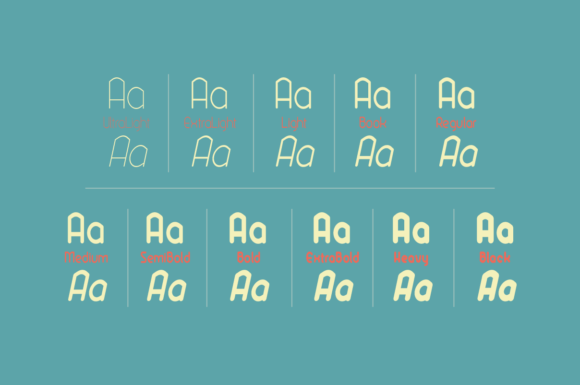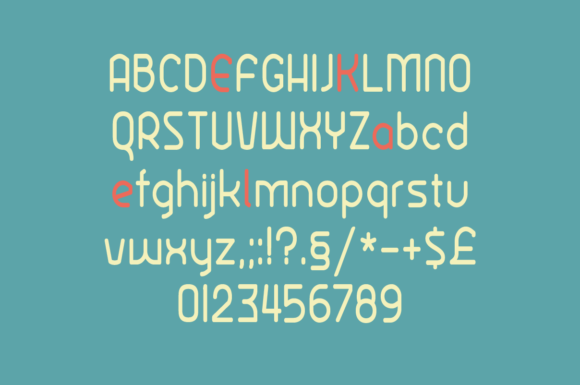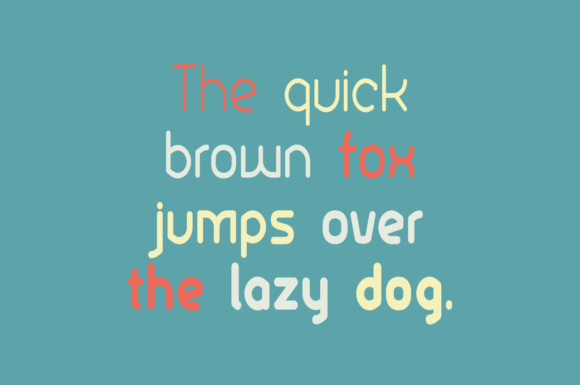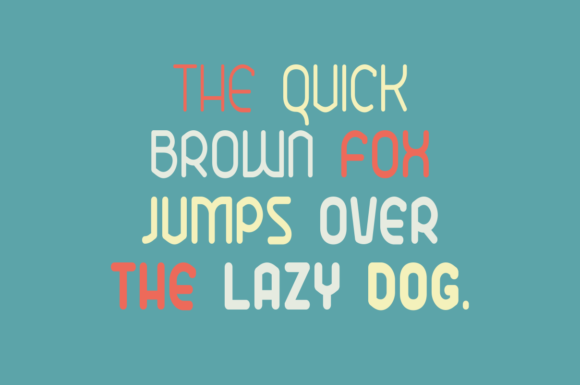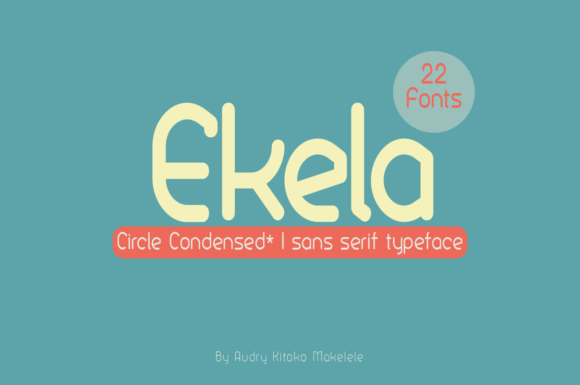
Introducing Ekela Font: The Ultimate Sans Serif for Creative Projects
Are you tired of using the same old fonts for your design projects? Look no further than Ekela Font, a minimal and neat sans serif font that’s perfect for adding a touch of modernity to your creative ideas. With its clean lines and simple aesthetic, Ekela Font is an incredibly versatile typeface that can easily be matched to a wide range of projects, from graphic design and branding to crafting and DIY.
The Characteristics of Ekela Font
Ekela Font is a sans serif font, which means it doesn’t have any decorative flourishes or lines at the ends of the letters. This gives it a clean and minimalist look that’s perfect for designs that need to be simple, yet effective. The font has a consistent stroke width and a subtle rounded edge, which makes it easy to read and adds a touch of warmth to your designs.
Why Choose Ekela Font?
So, why should you choose Ekela Font for your next project? Here are just a few reasons:
- Versatility: Ekela Font is incredibly versatile and can be used for a wide range of projects, from logos and branding to posters, flyers, and more.
- Legibility: The font is highly legible, even at small sizes, making it perfect for designs that need to communicate information clearly and effectively.
- Modern aesthetic: Ekela Font has a distinctly modern aesthetic that’s perfect for designs that need to look fresh and contemporary.
- Ease of use: The font is easy to use and can be easily paired with other fonts to create a unique and cohesive look.
How to Use Ekela Font in Your Designs
Ekela Font is easy to use and can be incorporated into your designs in a variety of ways. Here are a few ideas to get you started:
- Pair it with other fonts: Ekela Font pairs well with a wide range of fonts, from serif fonts like Georgia and Times New Roman to script fonts like Pacifico and Great Vibes.
- Use it for headings and titles: Ekela Font is perfect for headings and titles, where its clean lines and simple aesthetic can really make your design stand out.
- Use it for body text: Ekela Font is also highly legible and can be used for body text, making it perfect for designs that need to communicate information clearly and effectively.
Ekela Font in Crafting and DIY Projects
Ekela Font isn’t just limited to graphic design projects – it’s also perfect for crafting and DIY projects. Here are a few ideas for using Ekela Font in your crafting and DIY projects:
- Sign making: Ekela Font is perfect for creating signs, whether you’re making a sign for your business or a personalized sign for your home.
- Card making: Ekela Font is also great for card making, where its clean lines and simple aesthetic can add a touch of elegance to your designs.
- Journaling: Ekela Font can also be used for journaling, where its legibility and simplicity make it easy to read and write.
In conclusion, Ekela Font is a versatile and modern sans serif font that’s perfect for adding a touch of elegance to your designs. With its clean lines, simple aesthetic, and high legibility, Ekela Font is an excellent choice for a wide range of projects, from graphic design and branding to crafting and DIY. So why not give Ekela Font a try and see how it can make your designs stand out?